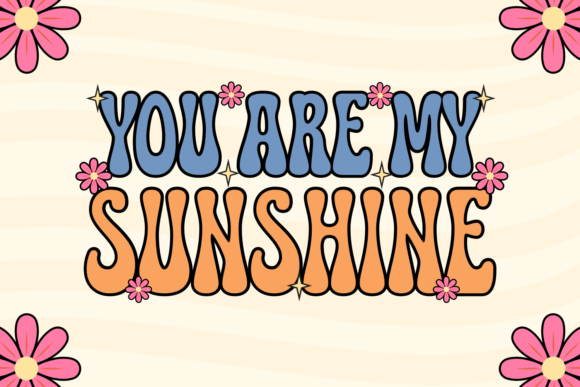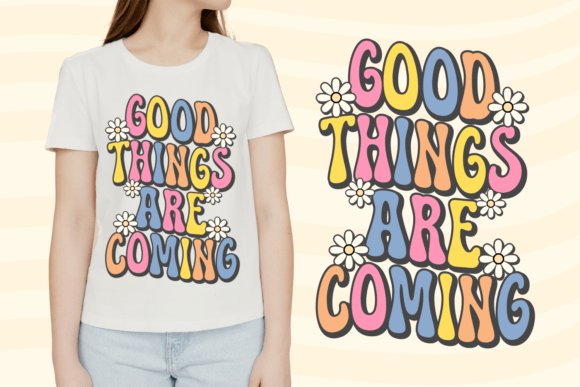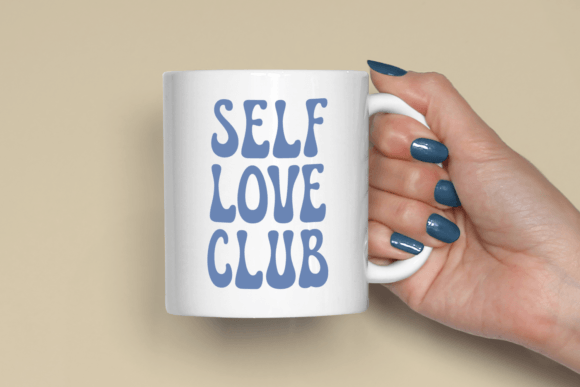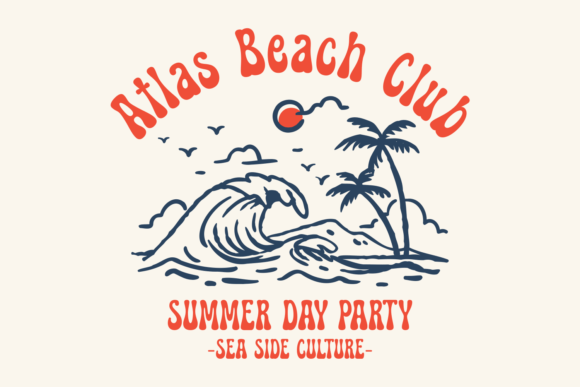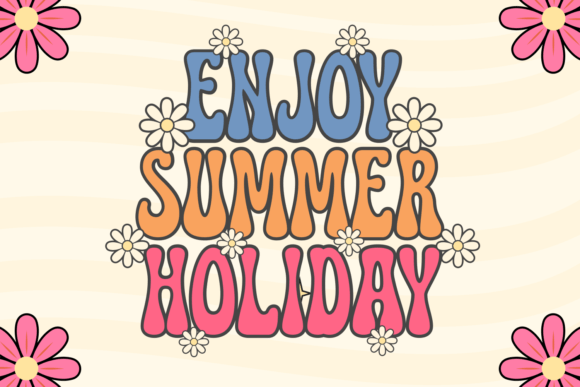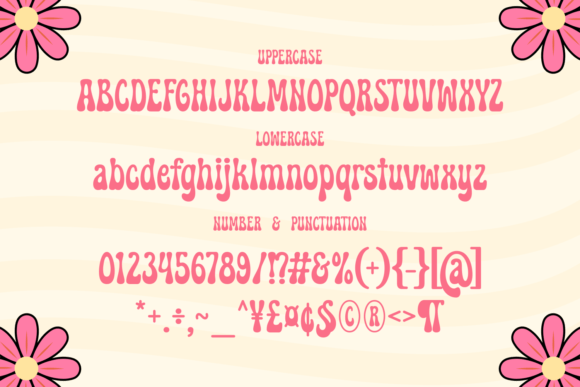
Introduction to Groovy Summer Font
Groovy Summer is a playful and lively display typeface that radiates fun and energy.
Its bouncy letterforms and dynamic strokes capture the essence of retro grooviness Ideal for headlines, posters, and branding projects,.
Key Features of Groovy Summer Font